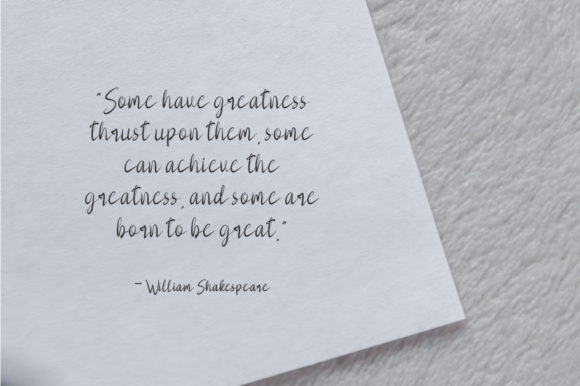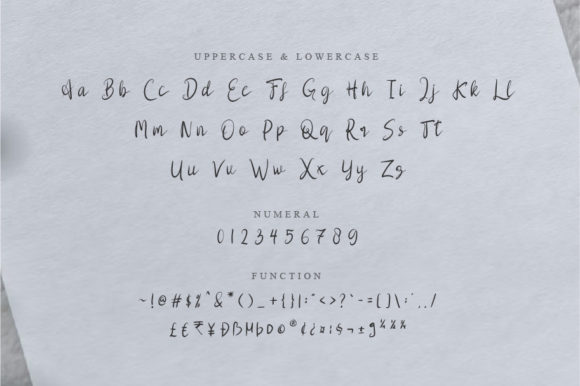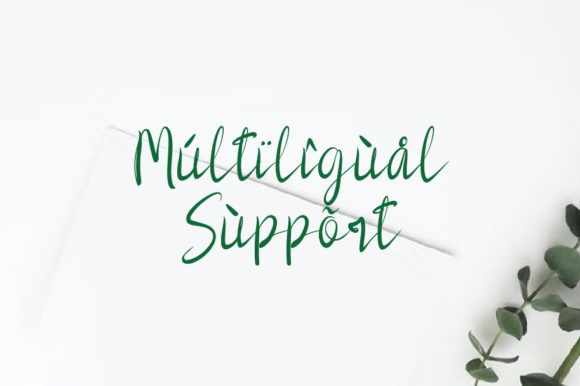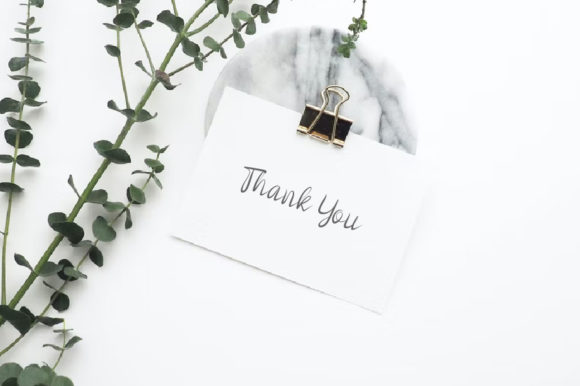
Gokags Script Font: Elevate Your Designs with a Timeless Handwritten Touch
In the world of typography, few fonts manage to capture the essence of elegance and charm as effectively as the Gokags Script Font. This lovely and timeless handwritten font has been making waves among designers and crafters, and for good reason. Its unique blend of classic appeal and modern flair makes it the perfect choice for creating eye-catching logos, branding materials, and quotes that stand out from the crowd.
Handwritten fonts have a special place in the hearts of designers and crafters. They evoke a sense of warmth, personality, and human touch that is often lost in more traditional typography. The Gokags Script Font takes this concept to the next level with its exquisite, hand-crafted design. Every letter, every curve, and every flourish has been meticulously crafted to bring a sense of beauty and elegance to your designs.
What Makes Gokags Script Font Special?
So, what sets the Gokags Script Font apart from other handwritten fonts on the market? The answer lies in its unique and beautiful touch. Each letter has been carefully designed to have its own distinct character, ensuring that your designs are always visually interesting and engaging. Whether you’re creating a logo, a brand identity, or a quote, the Gokags Script Font is sure to bring your design to life.
The Gokags Script Font is a versatile tool that can be used in a wide range of design applications. Whether you’re a professional designer or a crafter looking to add a personal touch to your projects, this font is sure to become a favorite. Here are just a few ways you can use the Gokags Script Font to elevate your designs:
- Logo Design: Create eye-catching logos that stand out from the crowd with the Gokags Script Font. Its unique and beautiful touch ensures that your logo will be memorable and impactful.
- Branding: Develop a strong brand identity with the Gokags Script Font. Its elegant and timeless design makes it perfect for use in branding materials such as business cards, letterheads, and packaging.
- Quotes and Typography: Add a touch of elegance and sophistication to your quotes and typography with the Gokags Script Font. Its beautiful and flowing design makes it perfect for use in inspirational quotes, posters, and social media graphics.
Tips for Using the Gokags Script Font
To get the most out of the Gokags Script Font, here are a few tips to keep in mind:
- Use it sparingly: While the Gokags Script Font is beautiful, it can be overwhelming if used too much. Use it sparingly to add a touch of elegance and sophistication to your designs.
- Experiment with colors: The Gokags Script Font looks great in a variety of colors, so don’t be afraid to experiment and find the perfect color scheme for your design.
- Pair it with other fonts: The Gokags Script Font pairs well with a variety of other fonts, so try pairing it with a bold font for added contrast and visual interest.
In conclusion, the Gokags Script Font is a timeless and elegant handwritten font that is sure to elevate your designs. Its unique and beautiful touch makes it perfect for creating eye-catching logos, branding materials, and quotes that stand out from the crowd. Whether you’re a professional designer or a crafter looking to add a personal touch to your projects, the Gokags Script Font is a must-have tool in your design arsenal.